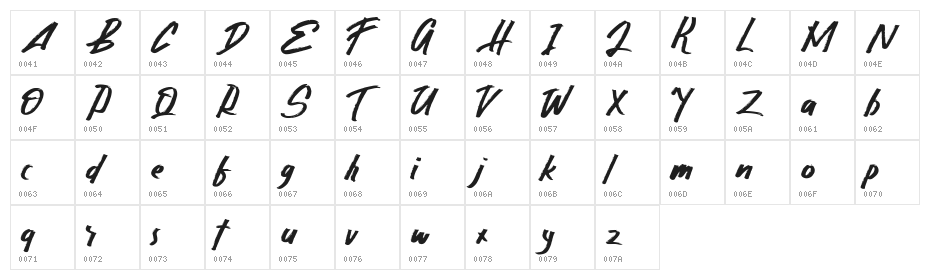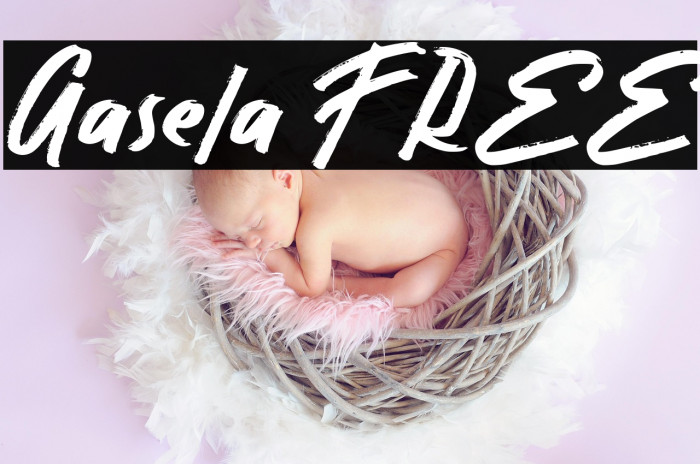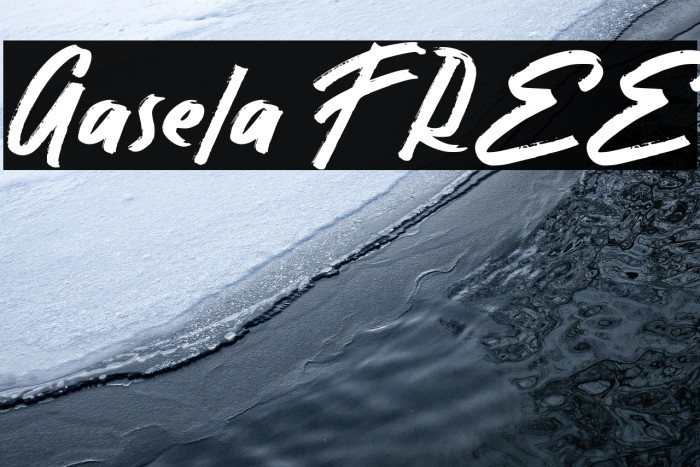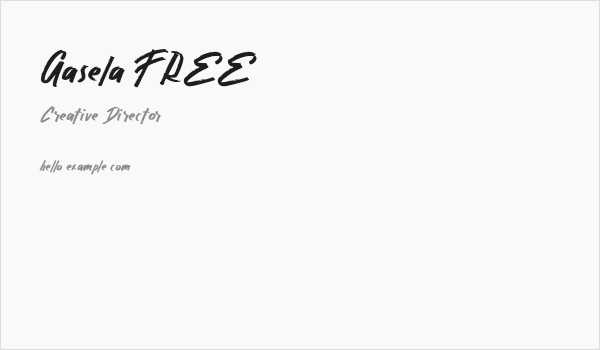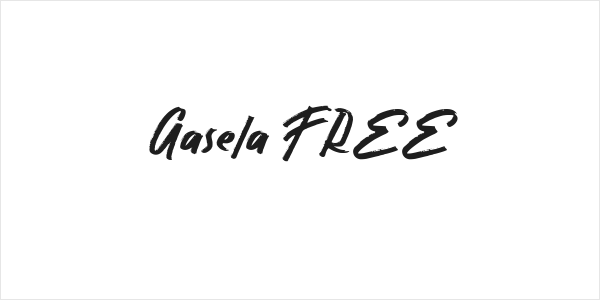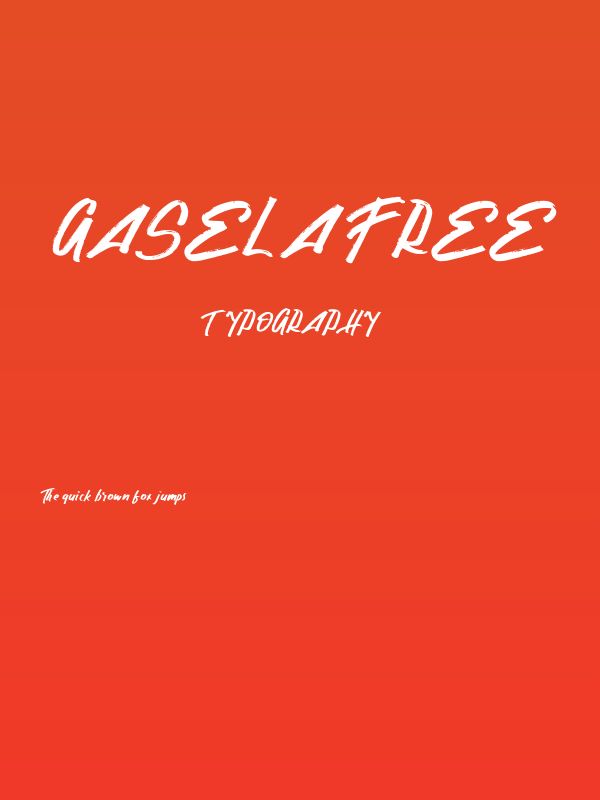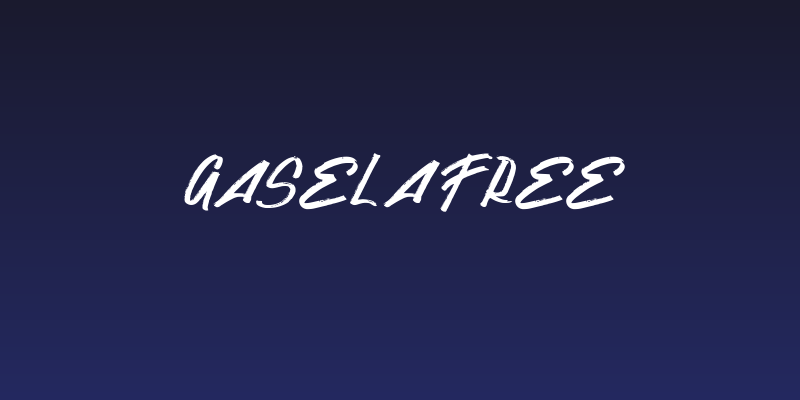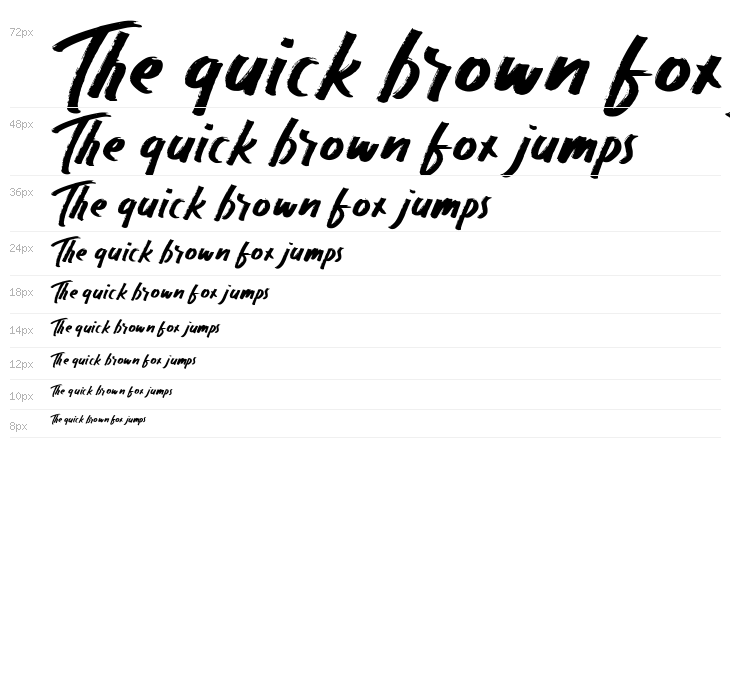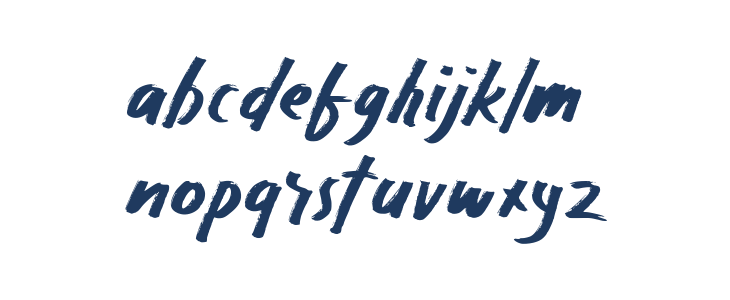
Gasela FREE Font
Gasela FREE Description
This font features a dynamic and expressive style, characterized by its bold and energetic brush strokes. The uppercase letters exhibit a strong presence with a slightly slanted orientation, giving a sense of movement and fluidity. The lowercase letters maintain a consistent style, complementing the uppercase with their bold and artistic flair. The font's design is reminiscent of hand-painted signage, making it ideal for projects that require a personal touch. The characters are well-spaced, ensuring readability while maintaining an artistic edge. The overall appearance is both modern and vintage, suitable for a variety of creative applications.
| Overall Style | Modern, Vintage |
| Proposed Projects | Ideal for branding, posters, headlines, and creative design projects that require a bold, artistic touch. |